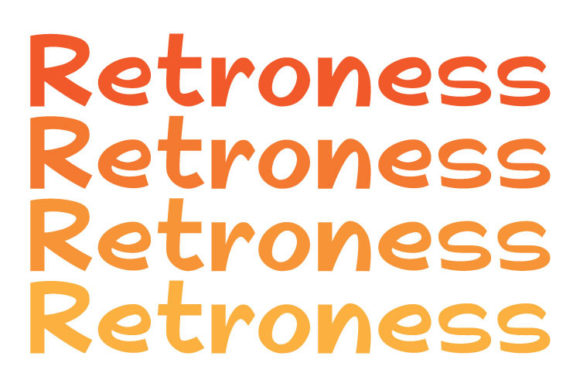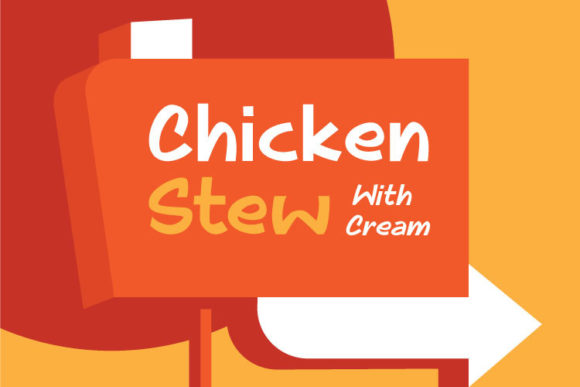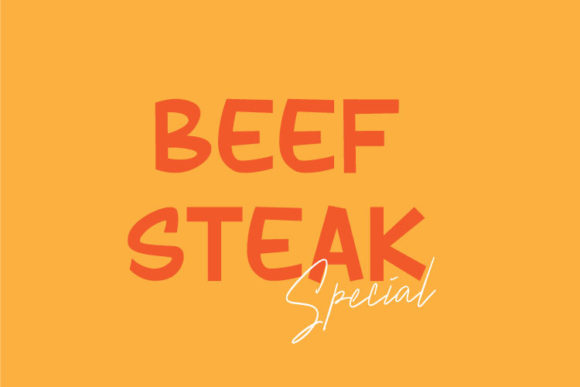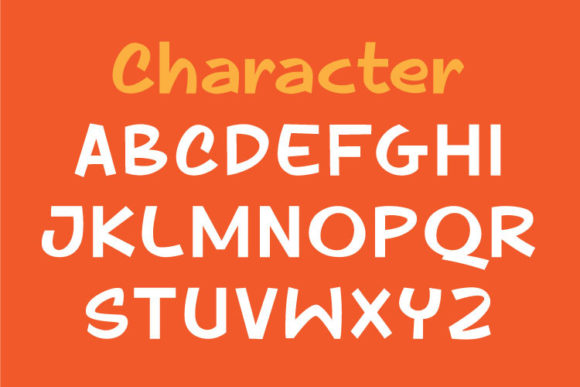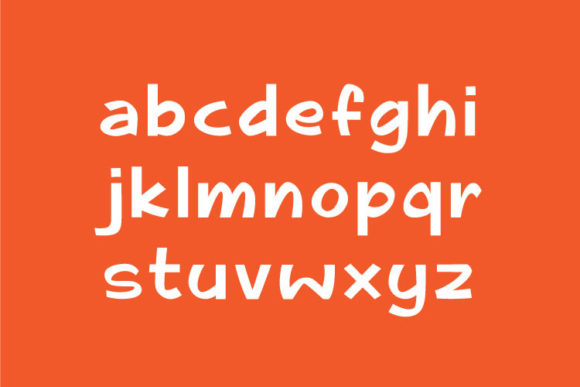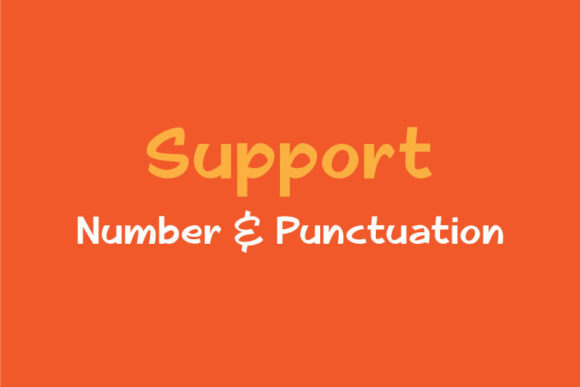
Bacilian Font: The Ultimate Retro-Styled Display Font for Designers and Crafters
Are you tired of using the same old fonts in your designs? Do you want to add a touch of personality and whimsy to your projects? Look no further than the Bacilian Font, a fun, cool, and retro-styled display font that’s perfect for designers and crafters alike. In this article, we’ll dive into the world of Bacilian Font and explore its features, benefits, and uses.
What is Bacilian Font?
Bacilian Font is a unique and eye-catching display font that’s designed to add a personal and realistic feel to your designs. Its authentic look and feel are reminiscent of classic retro fonts, but with a modern twist that makes it perfect for contemporary designs. Whether you’re working on a logo, poster, or social media graphic, Bacilian Font is sure to make your project stand out.
Features of Bacilian Font
- Retro Style: Bacilian Font has a distinctly retro feel that’s perfect for designers who want to add a touch of nostalgia to their designs.
- Fun and Cool: This font is designed to be fun and playful, making it perfect for designs that require a lighthearted touch.
- Display Font: Bacilian Font is a display font, which means it’s designed to be used at larger sizes, making it perfect for headlines, titles, and other display text.
- Authentic Look and Feel: The font has an authentic look and feel that’s sure to add a personal and realistic touch to your designs.
- Versatile: Bacilian Font can be used for a wide range of design projects, from logos and posters to social media graphics and more.
Benefits of Using Bacilian Font
So why should you choose Bacilian Font for your design projects? Here are just a few benefits of using this amazing font:
- Adds Personality to Your Designs: Bacilian Font is a unique and eye-catching font that’s sure to add personality to your designs.
- Perfect for Retro-Inspired Designs: If you’re looking to create a retro-inspired design, Bacilian Font is the perfect choice.
- Easy to Read: Despite its playful and whimsical feel, Bacilian Font is easy to read, even at smaller sizes.
- Great for Display Text: Bacilian Font is designed specifically for display text, making it perfect for headlines, titles, and other display text.
How to Use Bacilian Font in Your Designs
Who is Bacilian Font for?
Bacilian Font is perfect for designers and crafters who want to add a touch of personality and whimsy to their designs. Here are a few examples of designers who may benefit from using Bacilian Font:
- Graphic Designers: Graphic designers who want to create eye-catching logos, posters, and other graphics will love Bacilian Font.
- Social Media Designers: Social media designers who want to create engaging and shareable graphics will appreciate Bacilian Font’s playful and whimsical feel.
- Crafters: Crafters who want to add a personal touch to their projects will love Bacilian Font’s authentic look and feel.